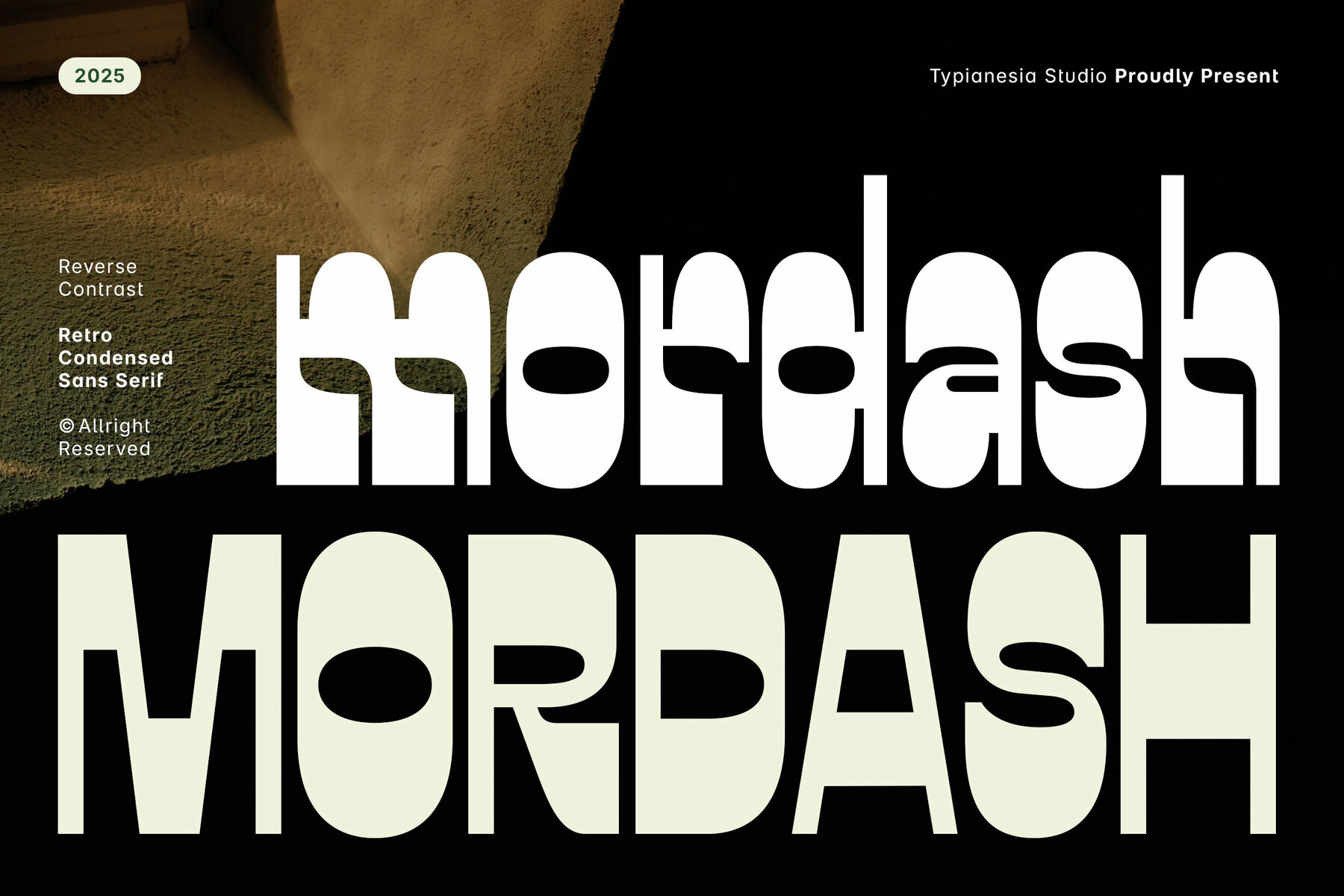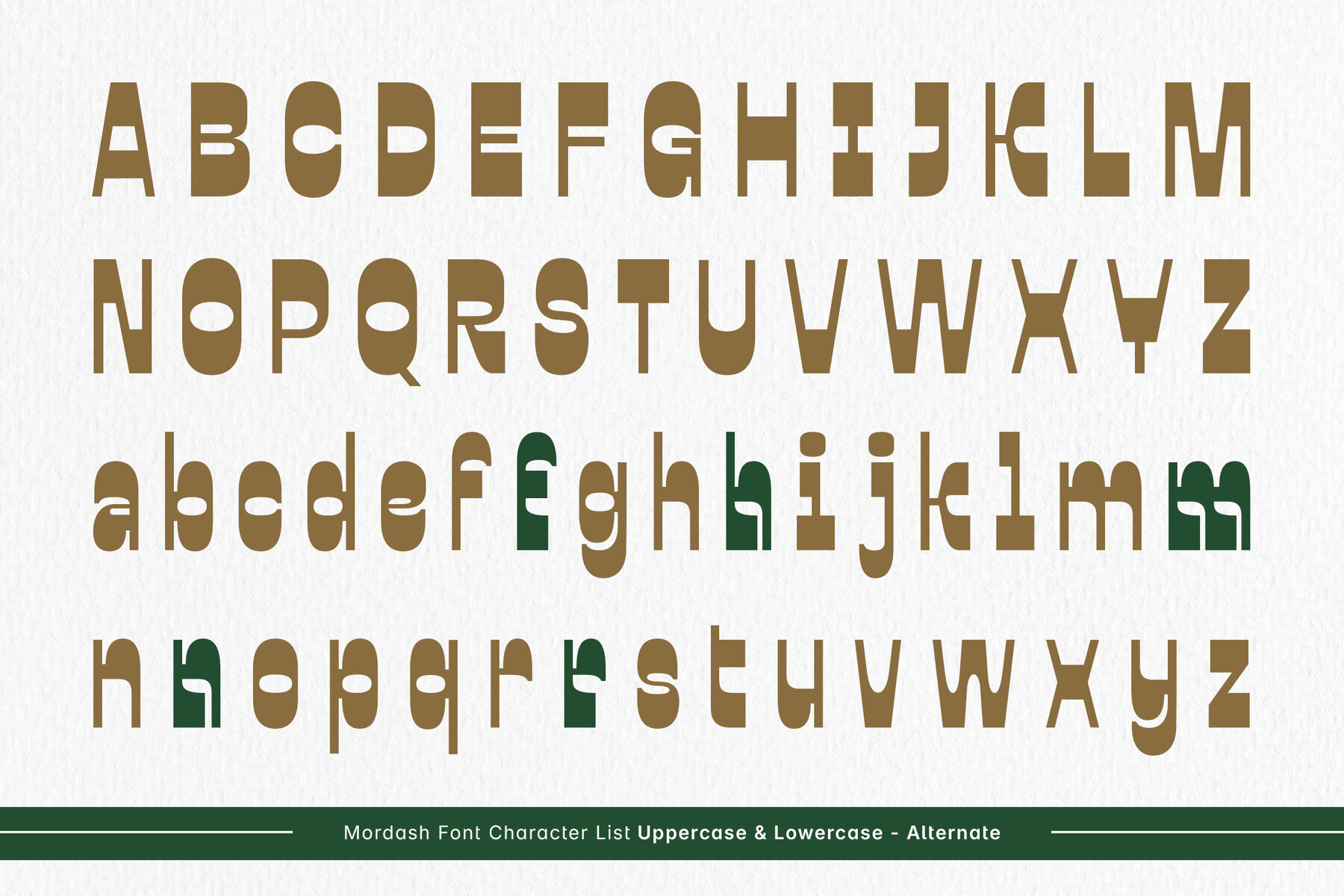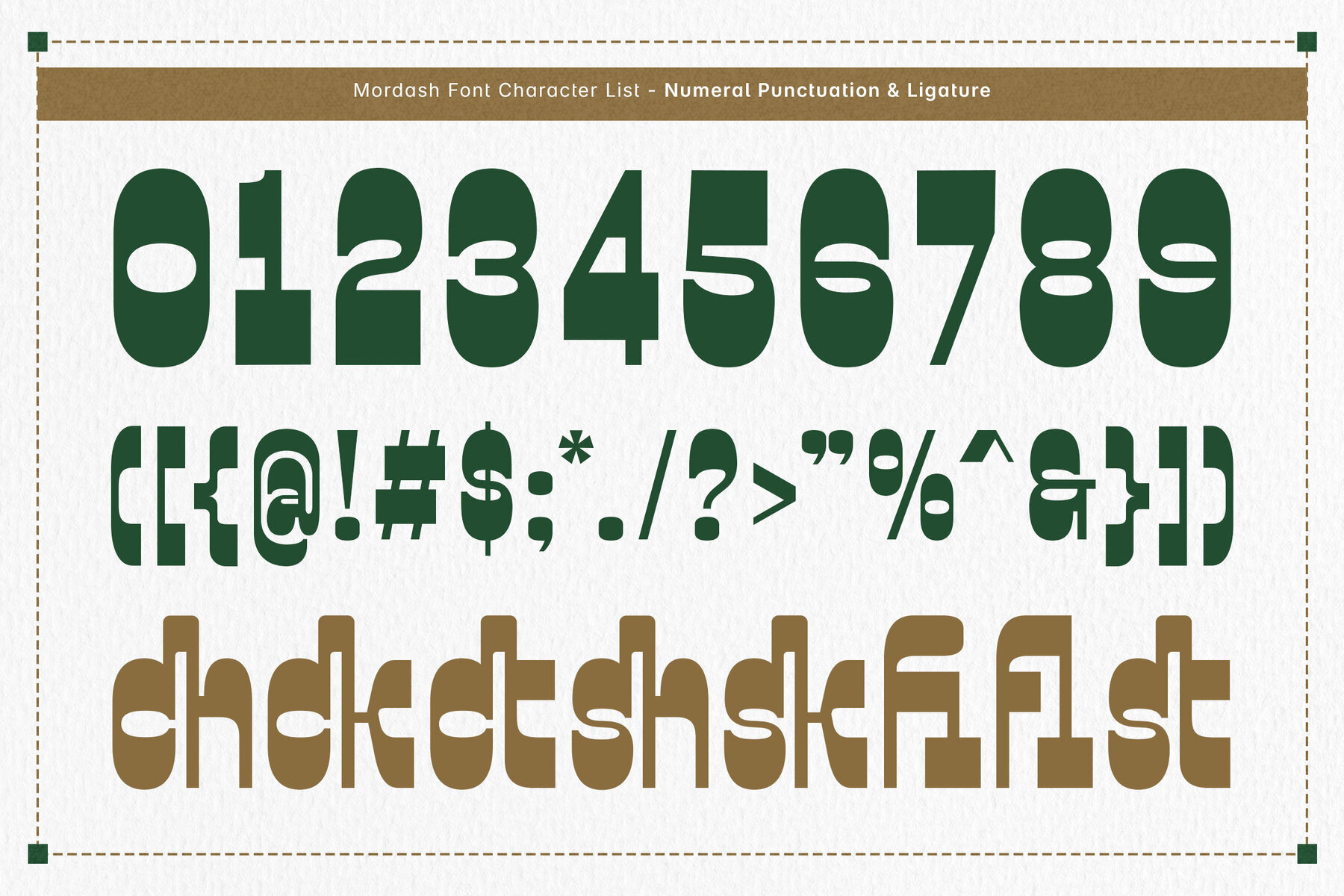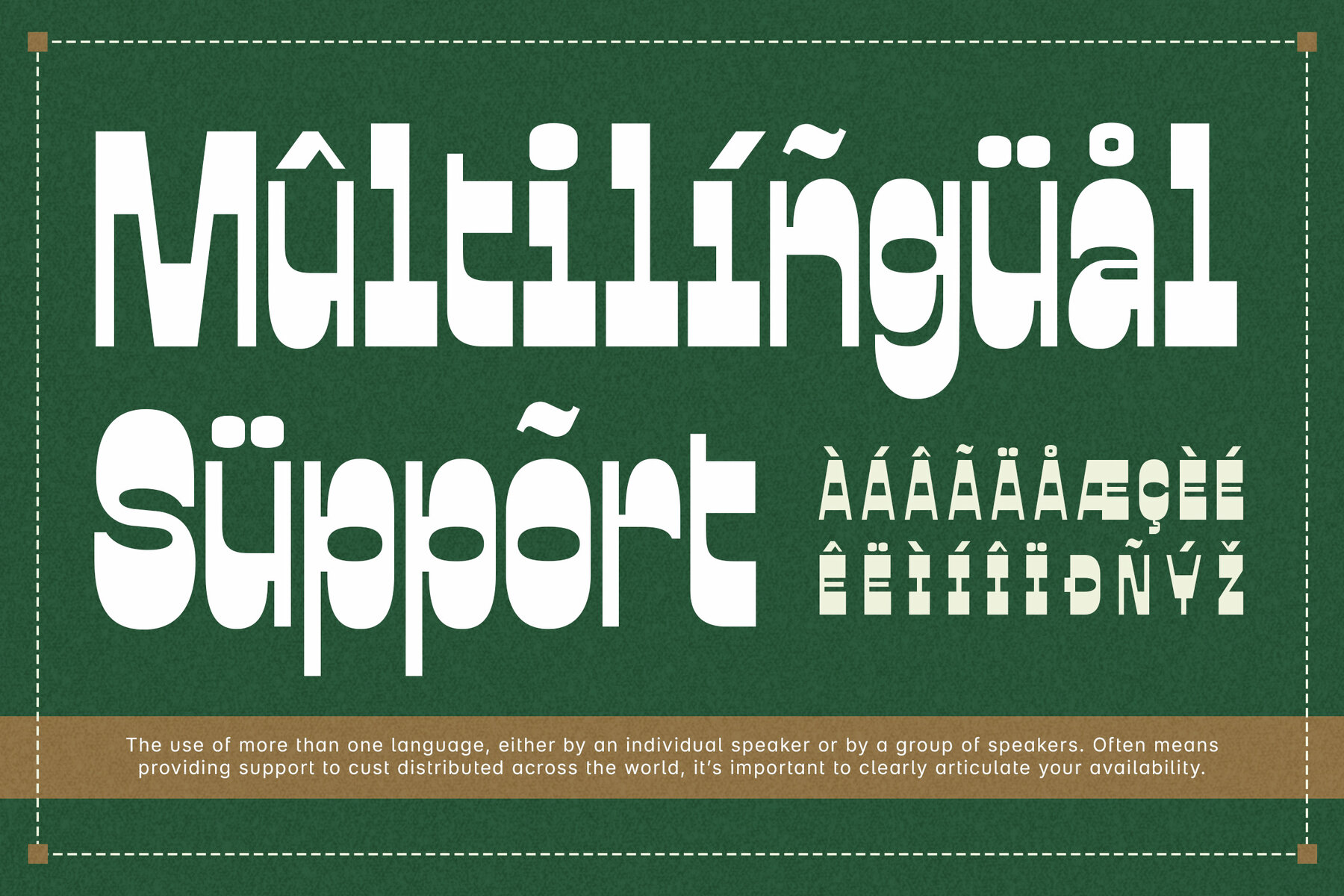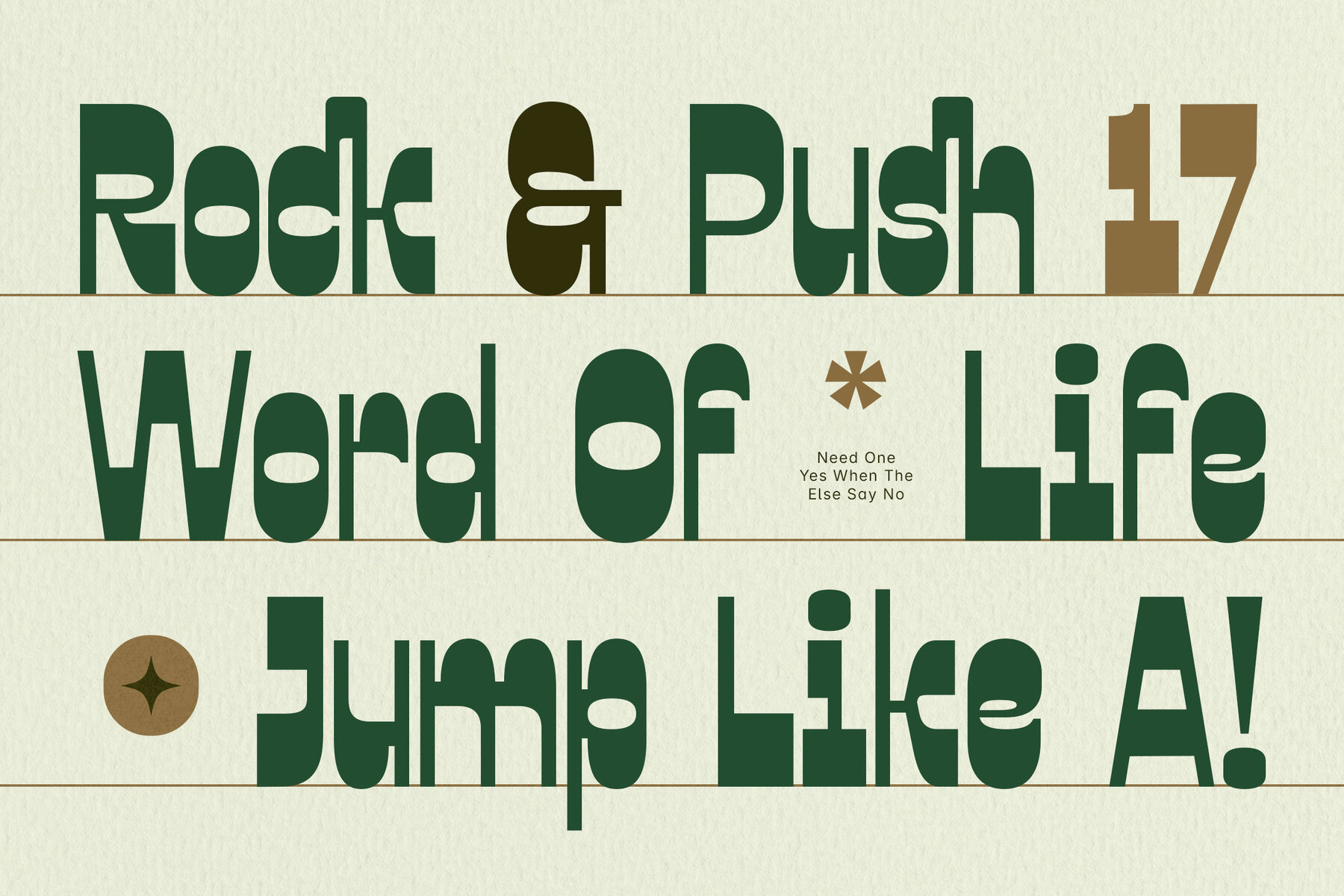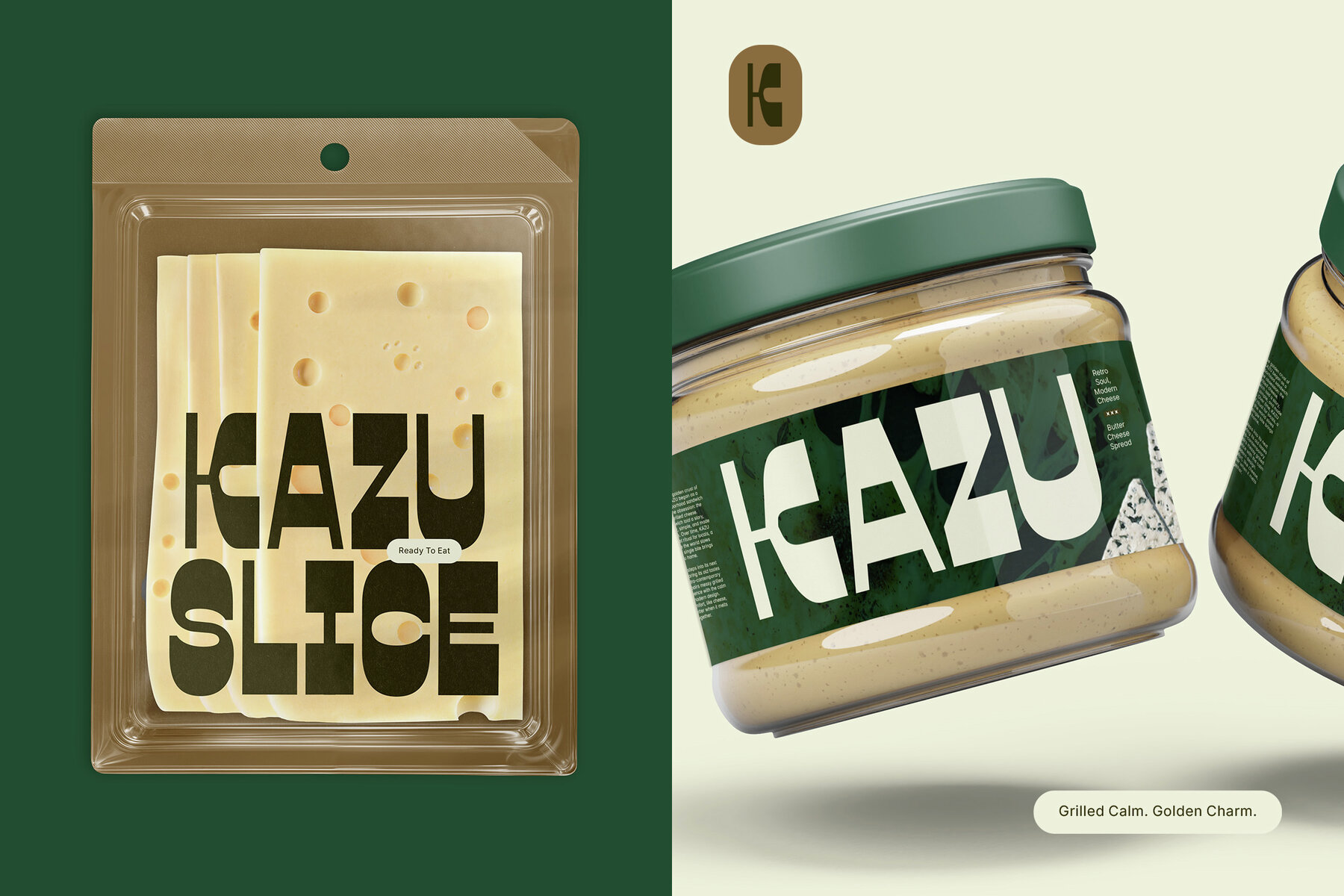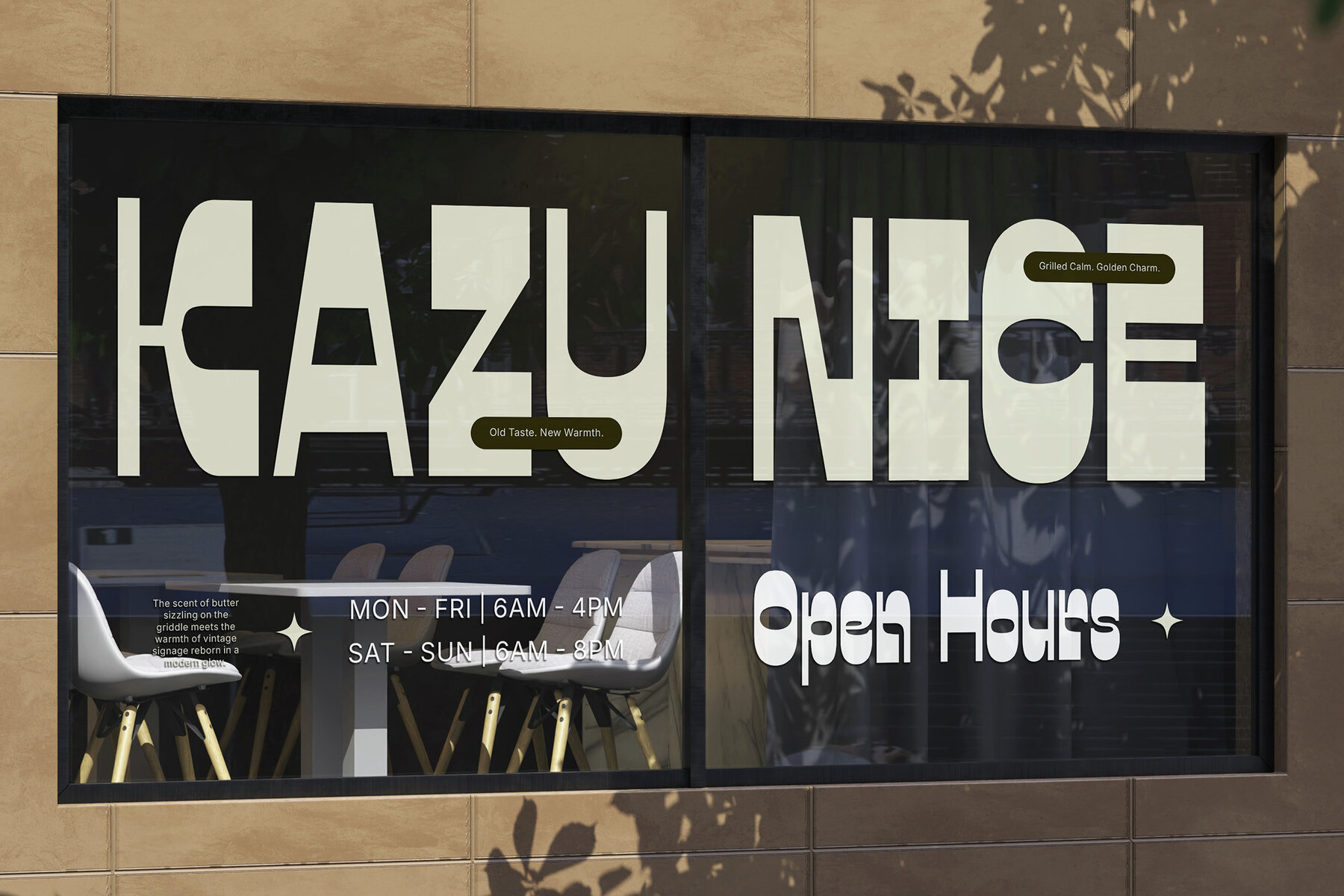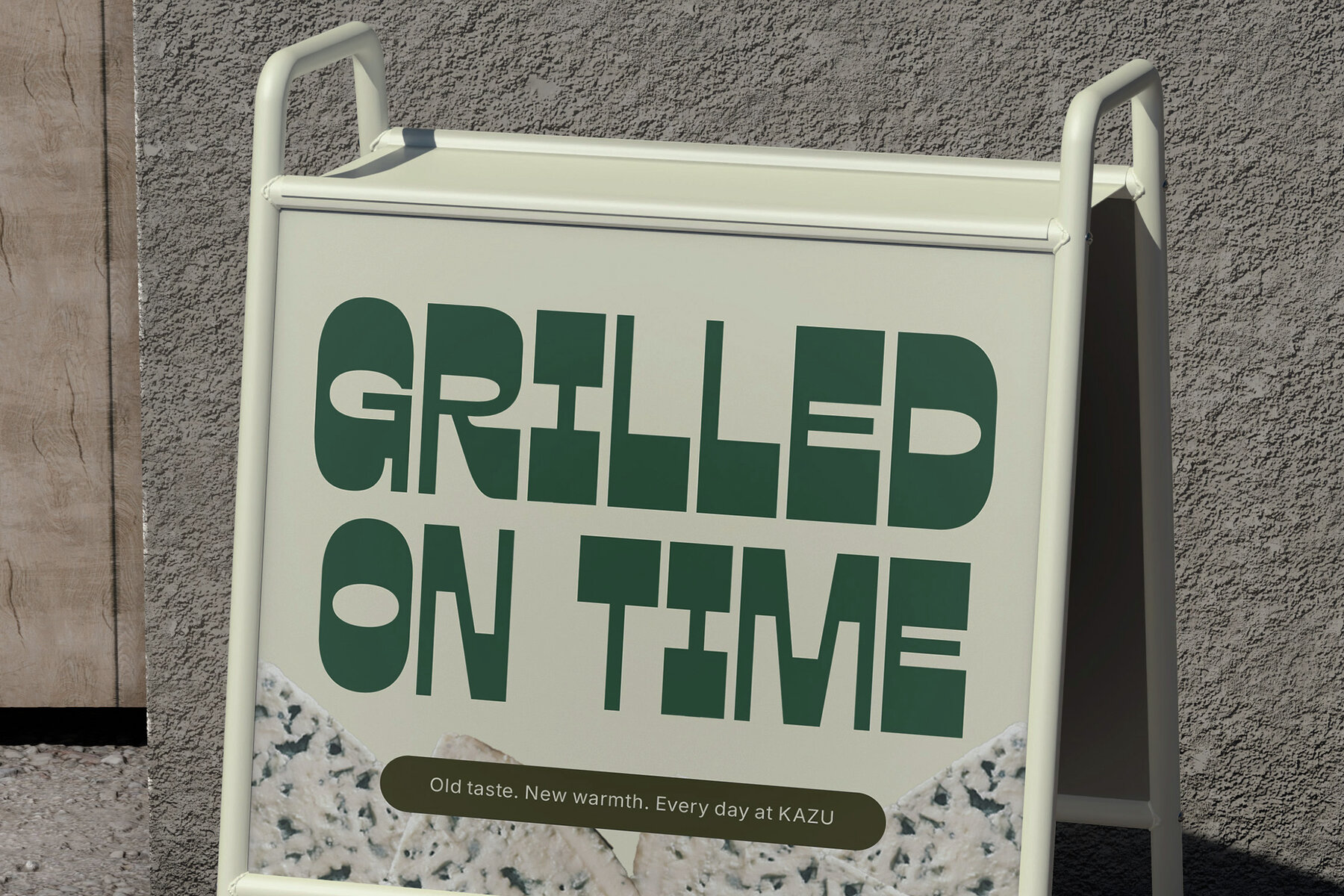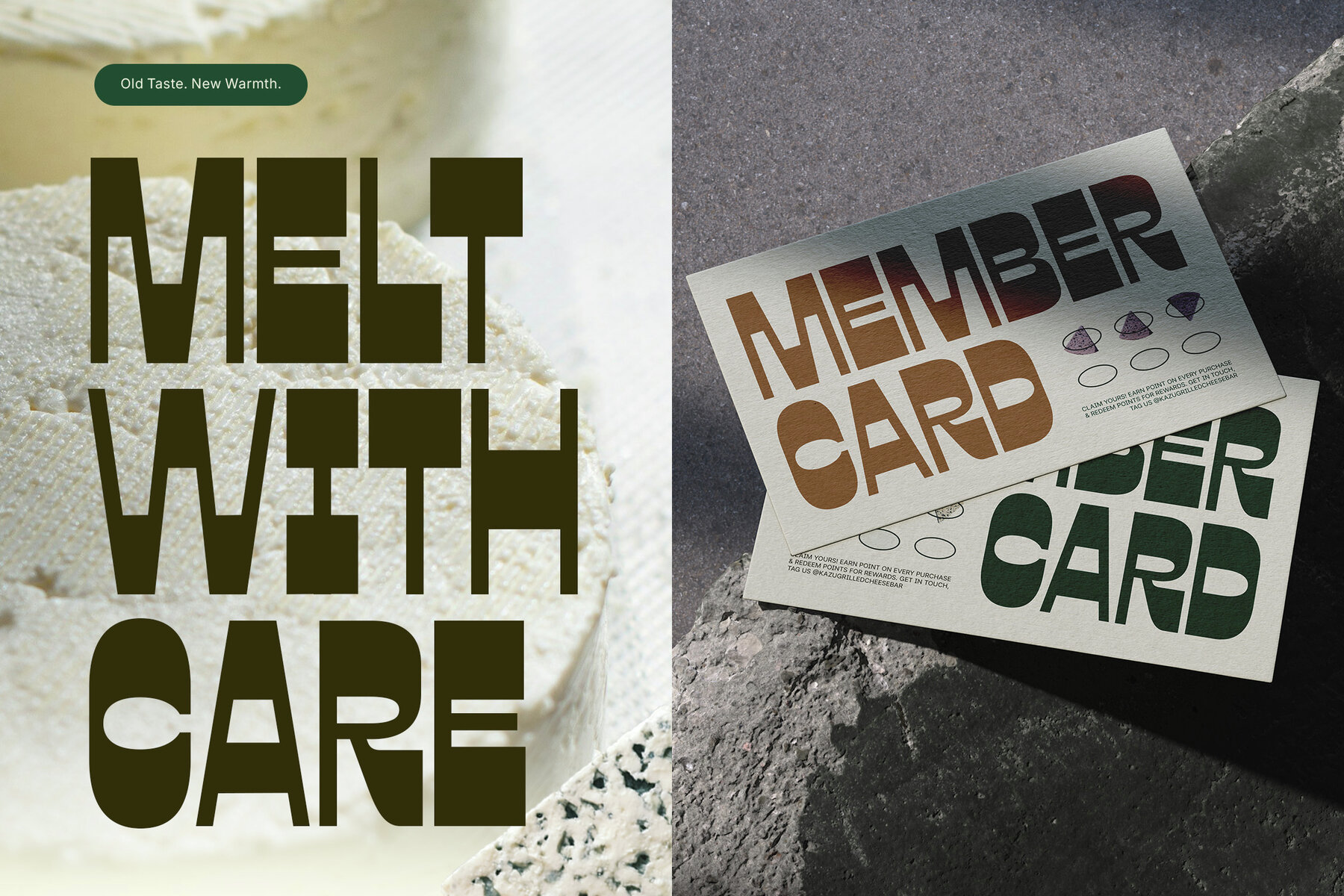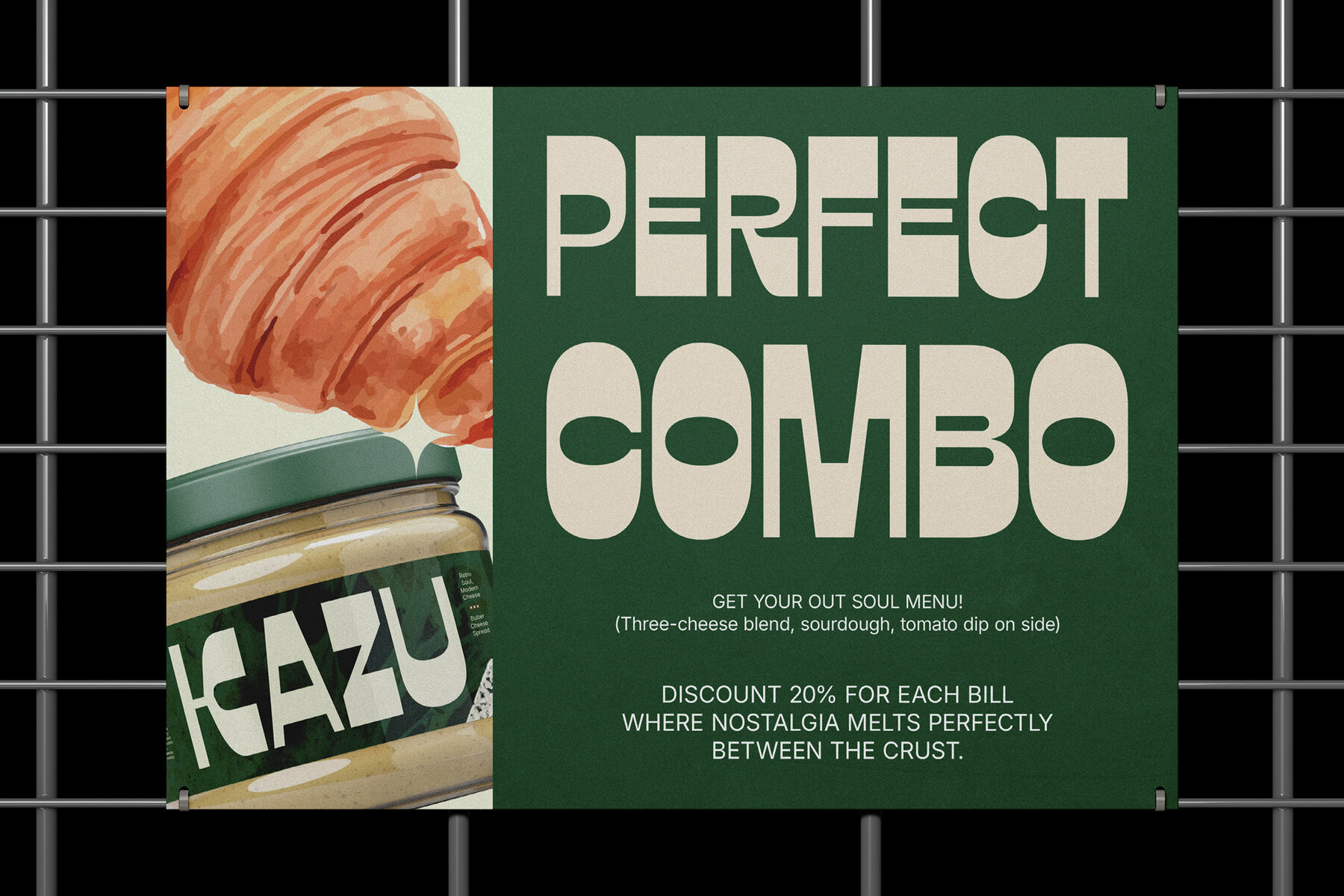
Mordash Font
Mordash Regular
Mordash captures the spirited character of 1980s design. This display sans serif font uses tall, condensed letterforms and reverse contrast to produce an immediate visual impact. Its rounded terminals and crisp geometry position Mordash as a striking choice for projects that require both nostalgic charm and modern clarity. Mordash is ideal for branding applications, large-scale poster designs, and bold headlines. The unique contrast and form make this typeface a standout for creative directors seeking to infuse designs with retro flair without sacrificing legibility. Mordash complements interiors and collateral within hospitality, particularly in cafes and coffee shops, as well as inventive packaging and campaigns that call for a fresh yet memorable visual identity.Mordash: Bold Retro Condensed Sans With Reverse Contrast